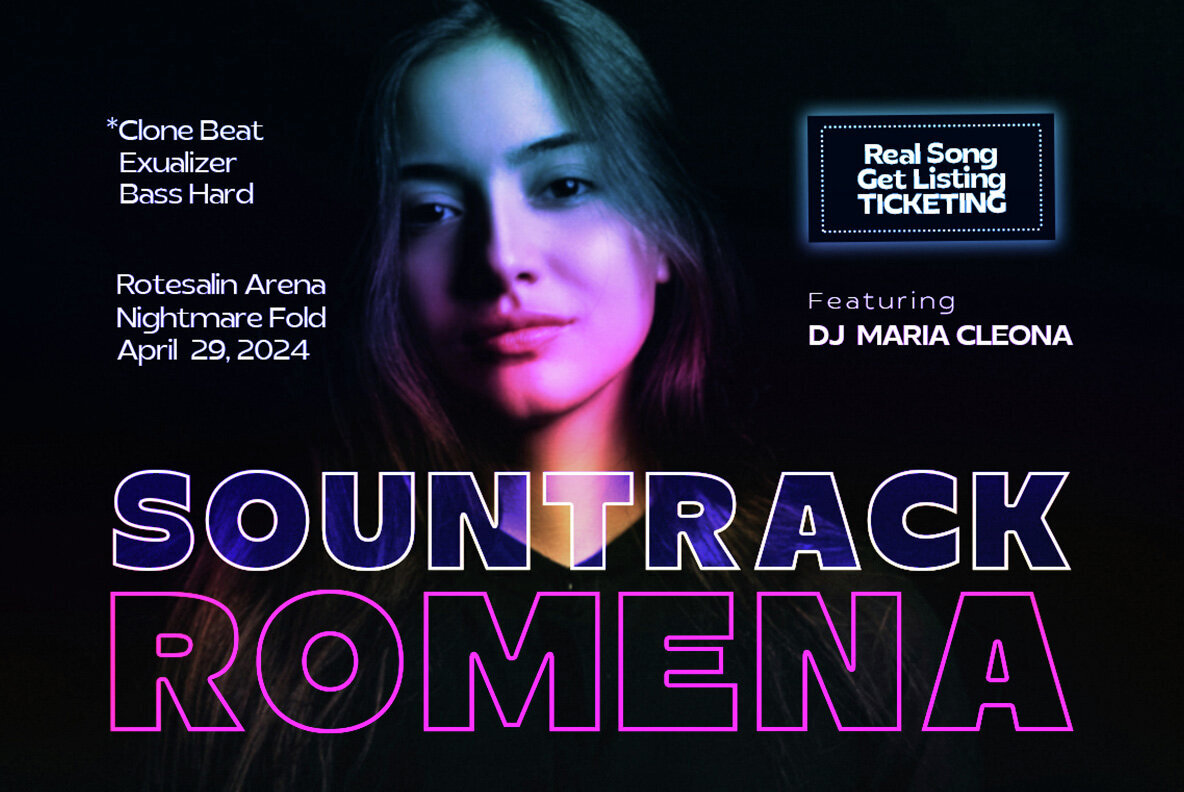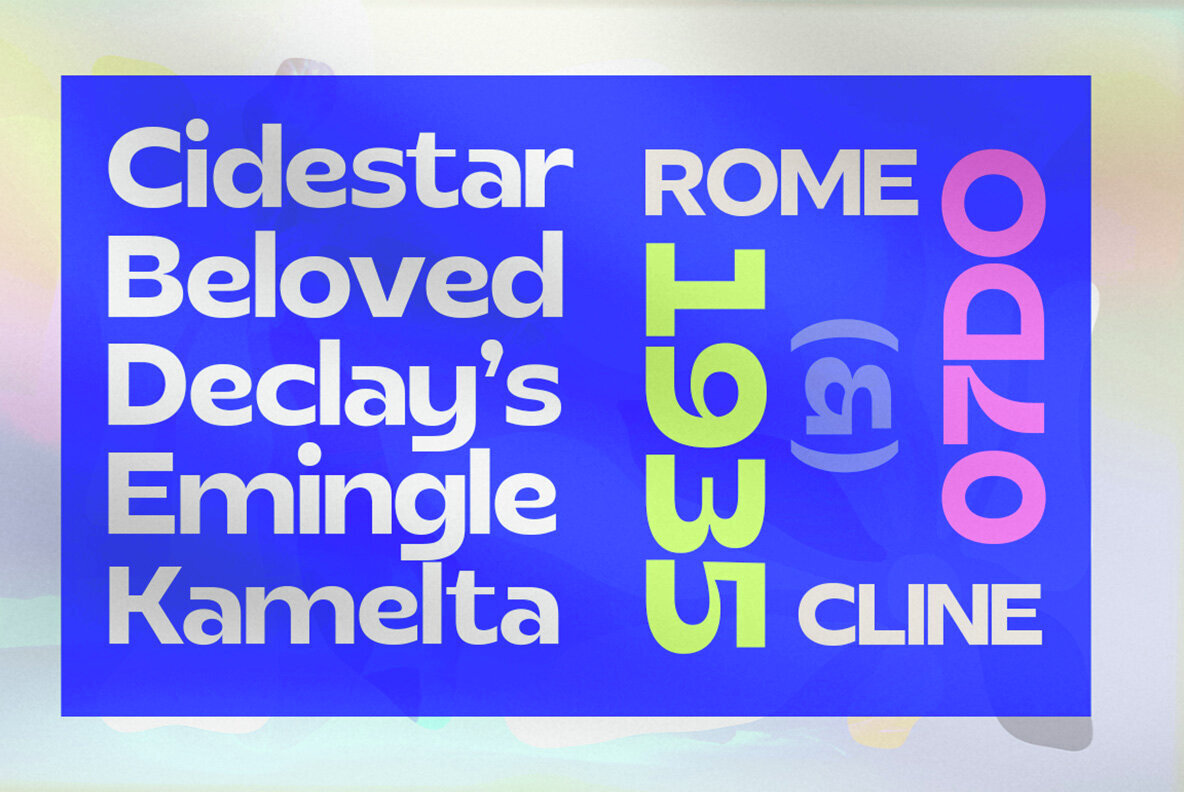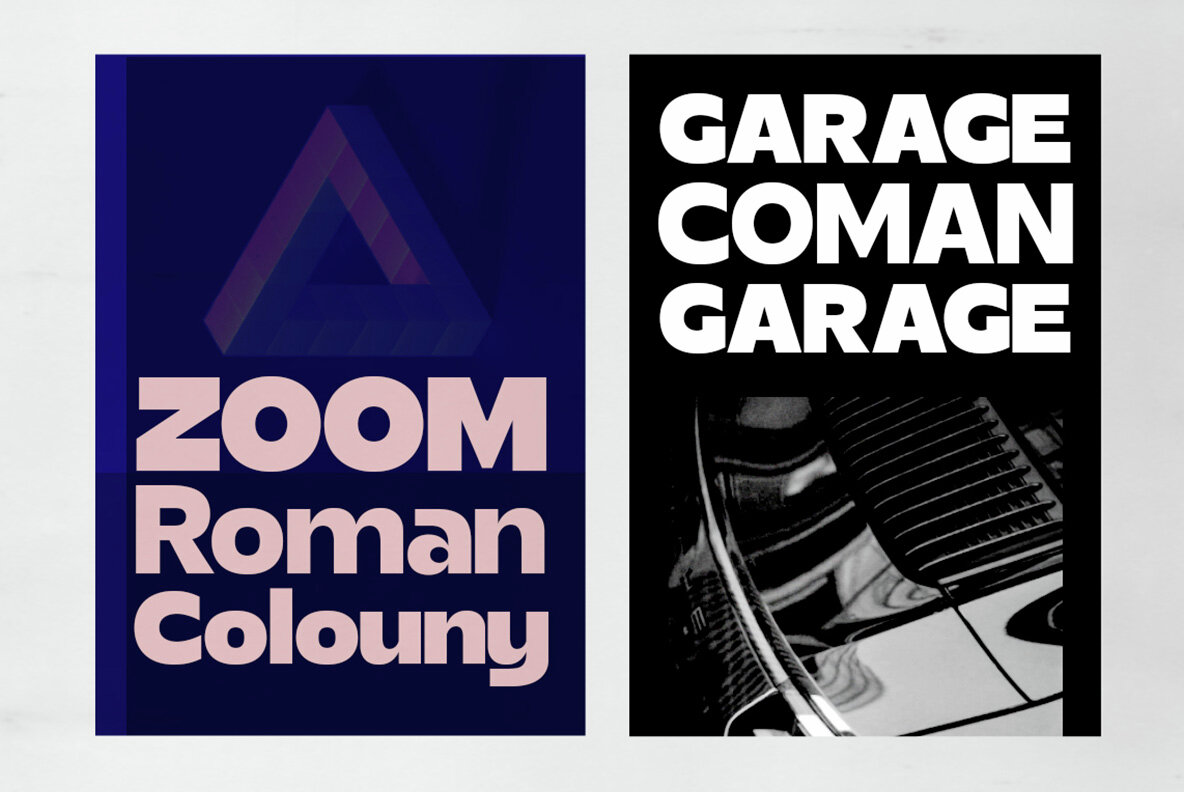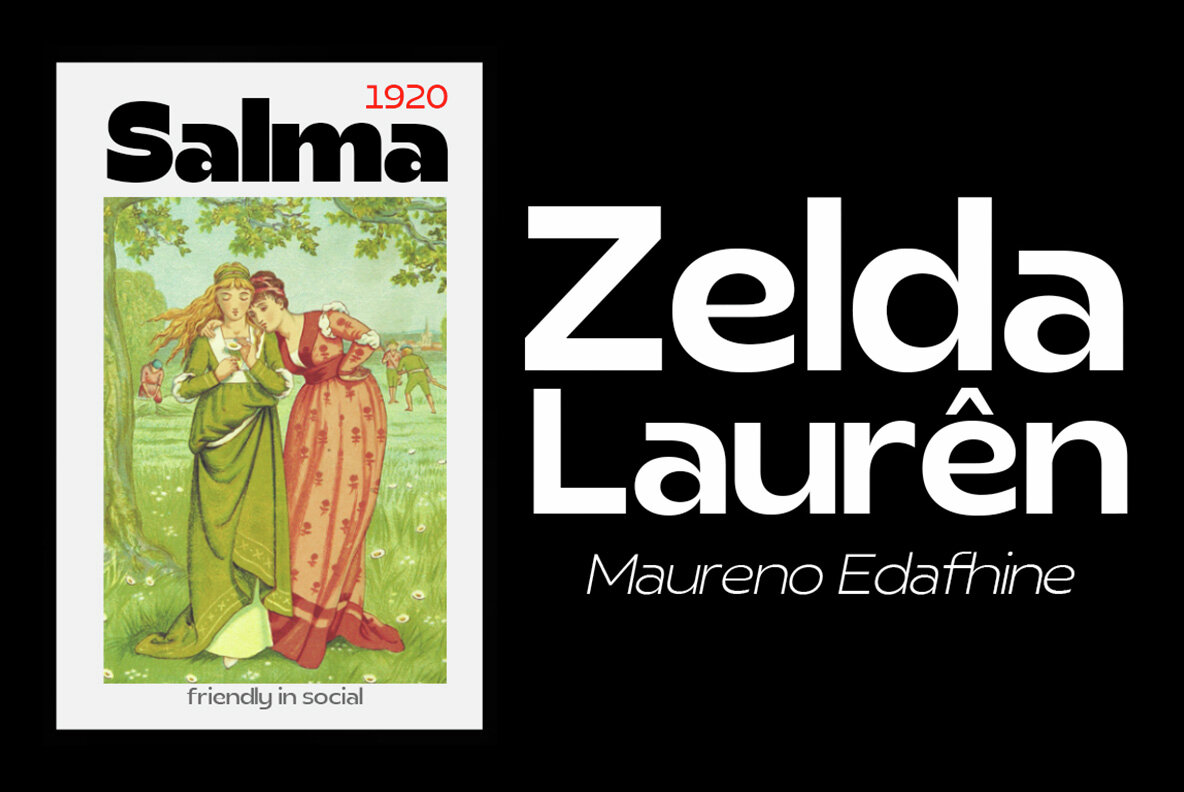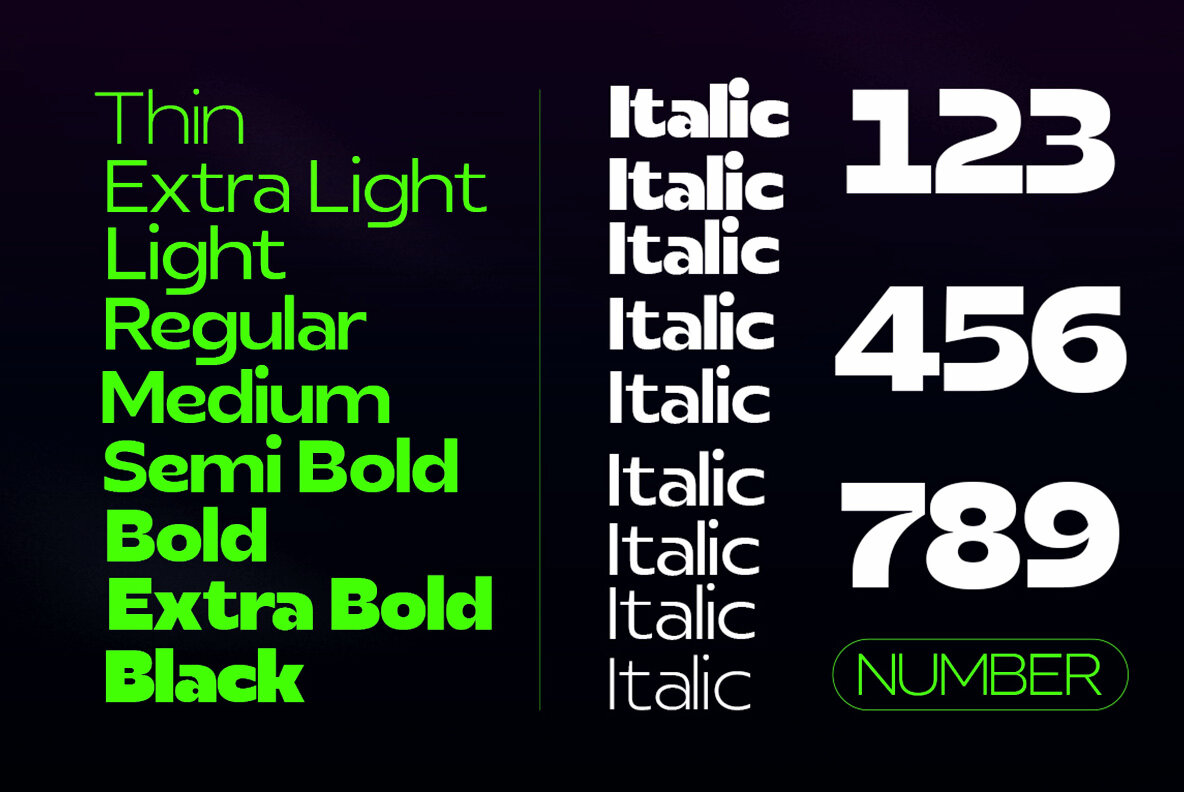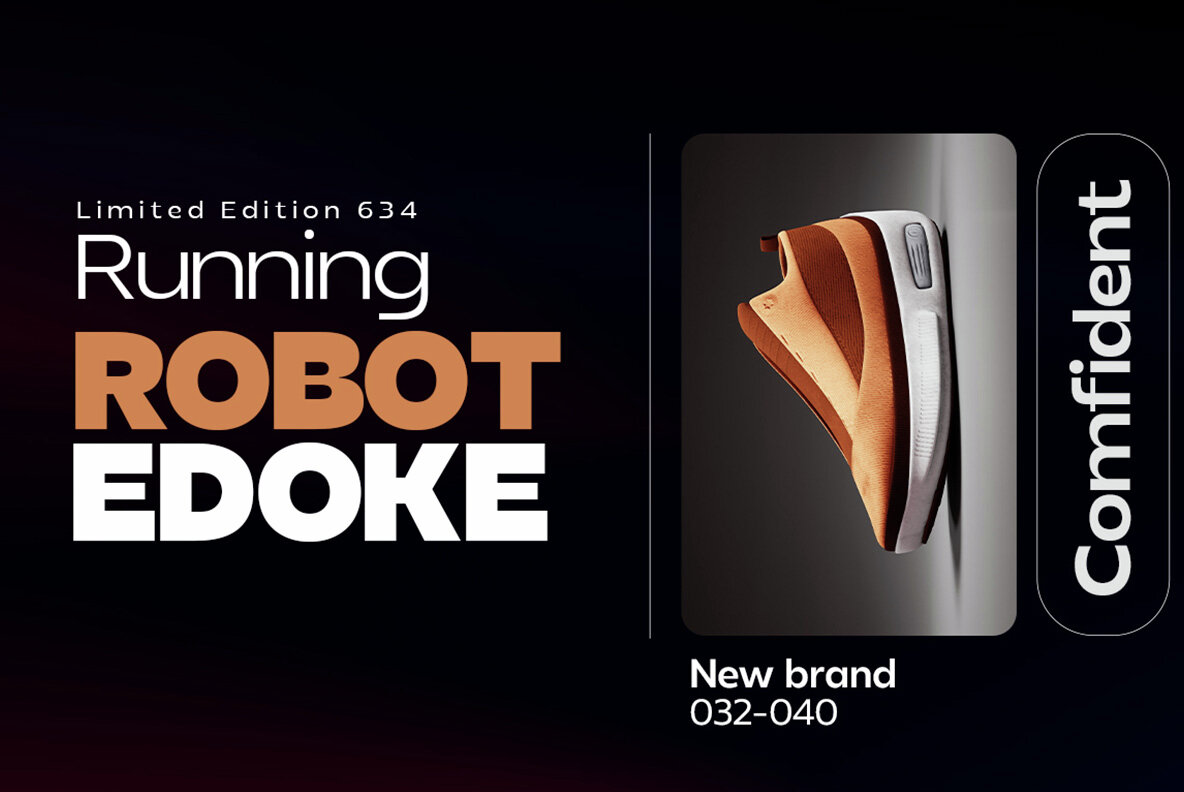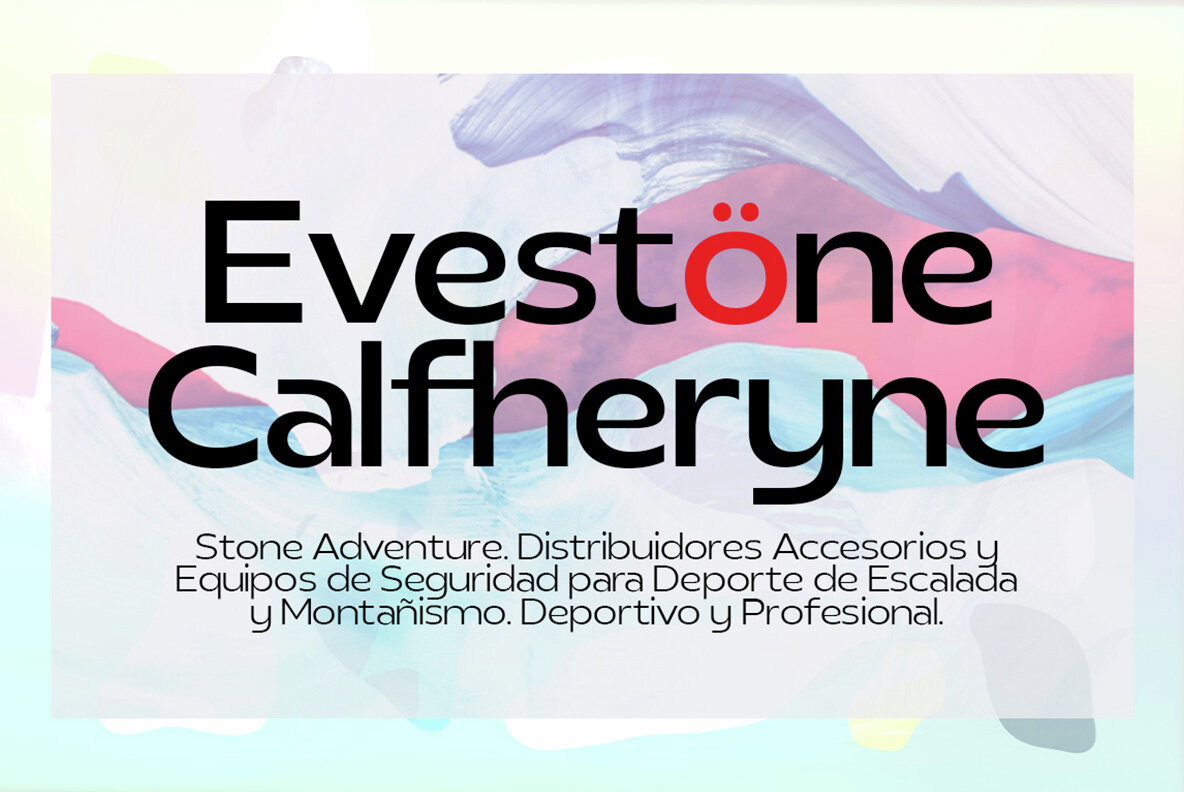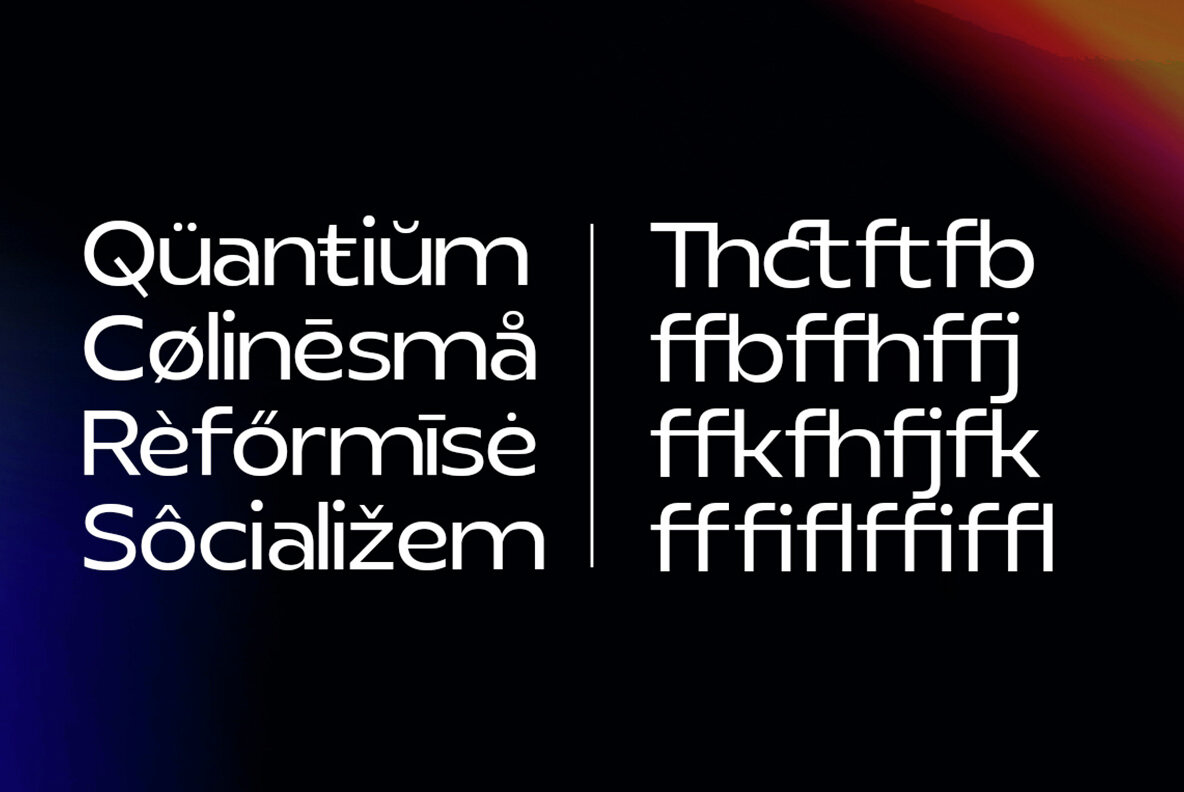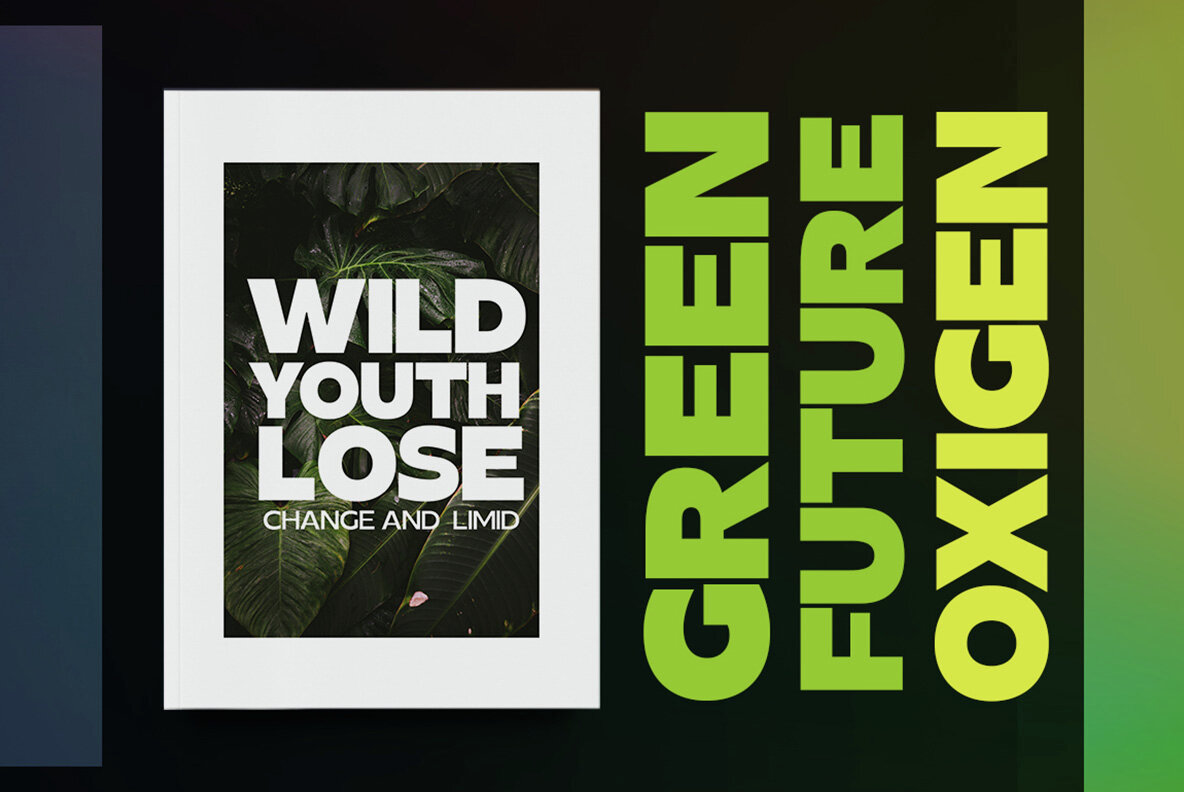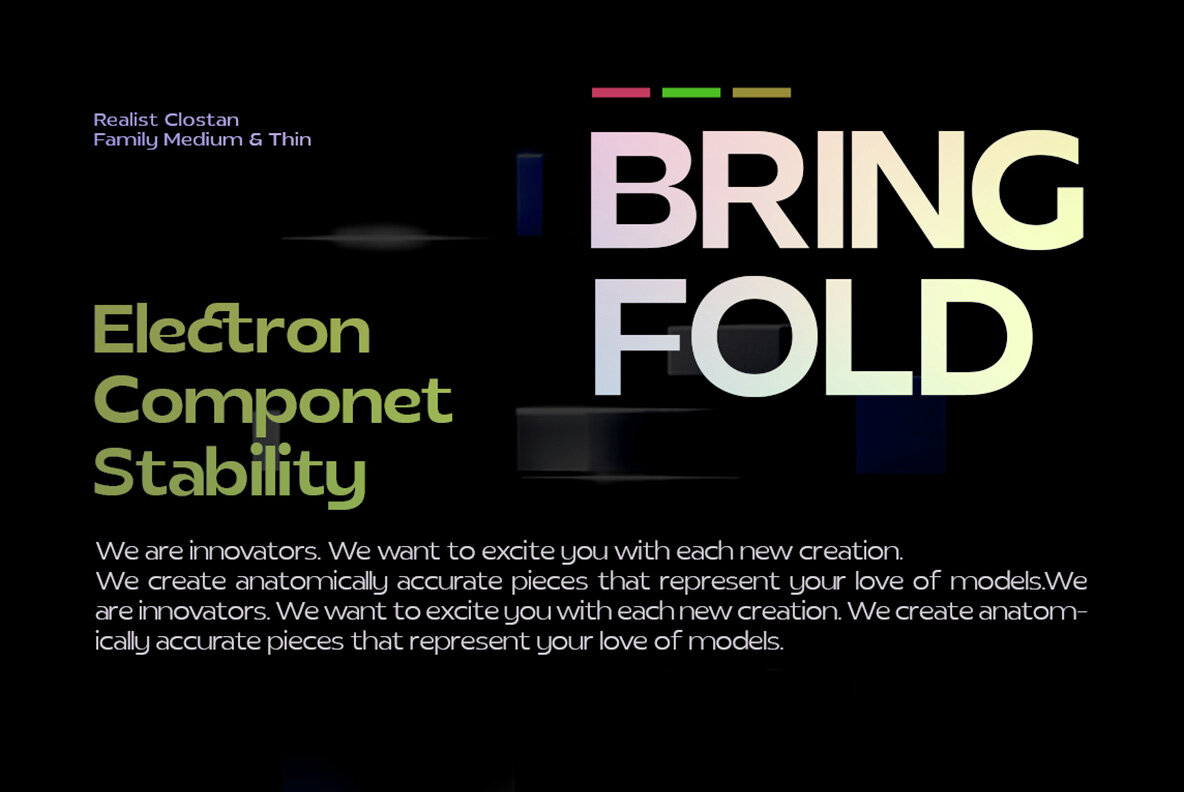
Realist Clostan Font
Realist Clostan is an elegant, contrasting serif typeface that offers a modern twist on a classic genre. It confidently balances extreme bold strokes with whispered thin curves, creating a distinctive, modern design. This typeface is a harmonious blend of beauty and functionality. Realist Clostan has been crafted with care, ensuring accessibility and enjoyment in its use. Perfect for those seeking a typeface that blends tradition with modern aesthetics.Realist Clostan: Elegant Contrasting Serif Typeface